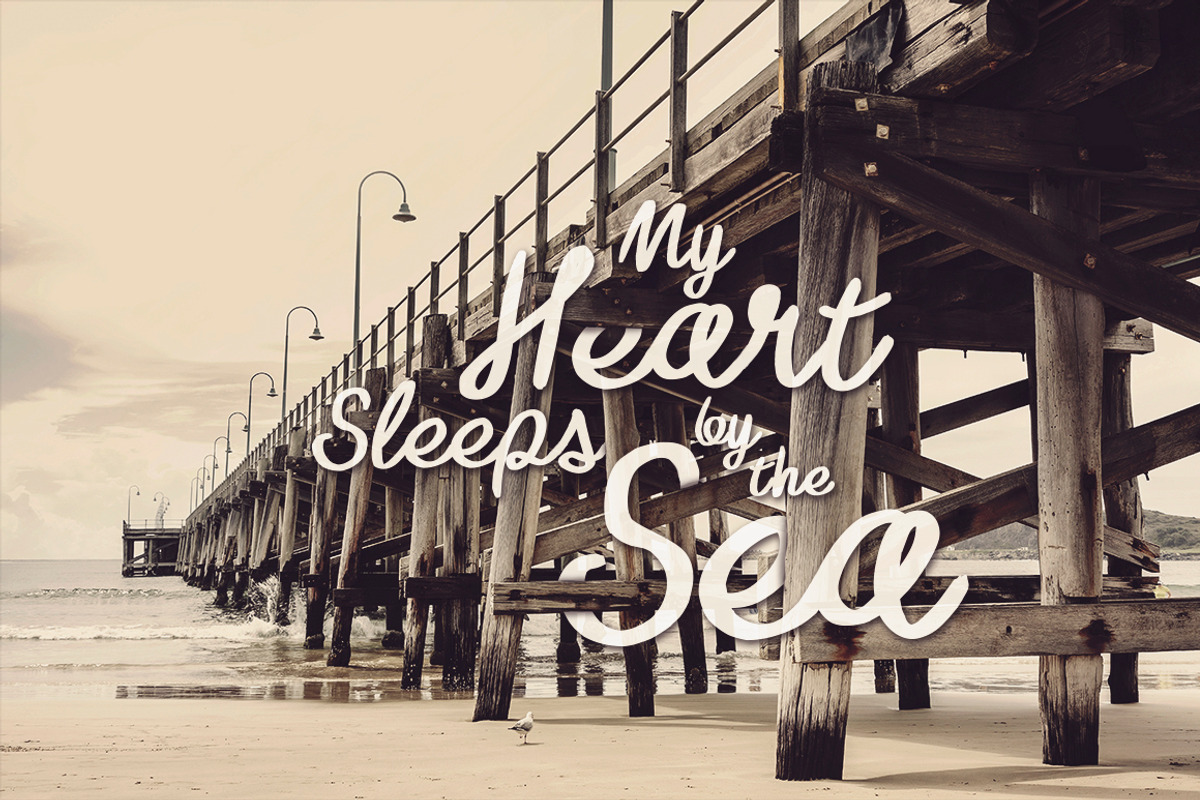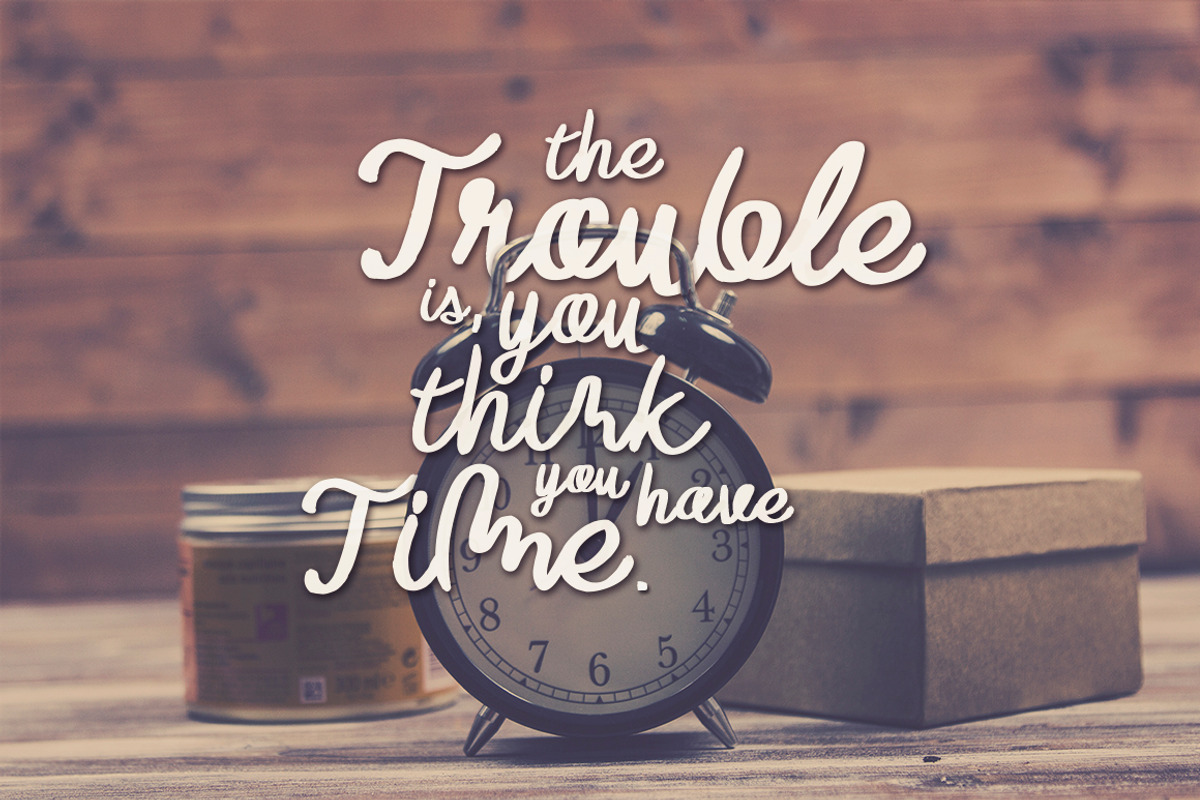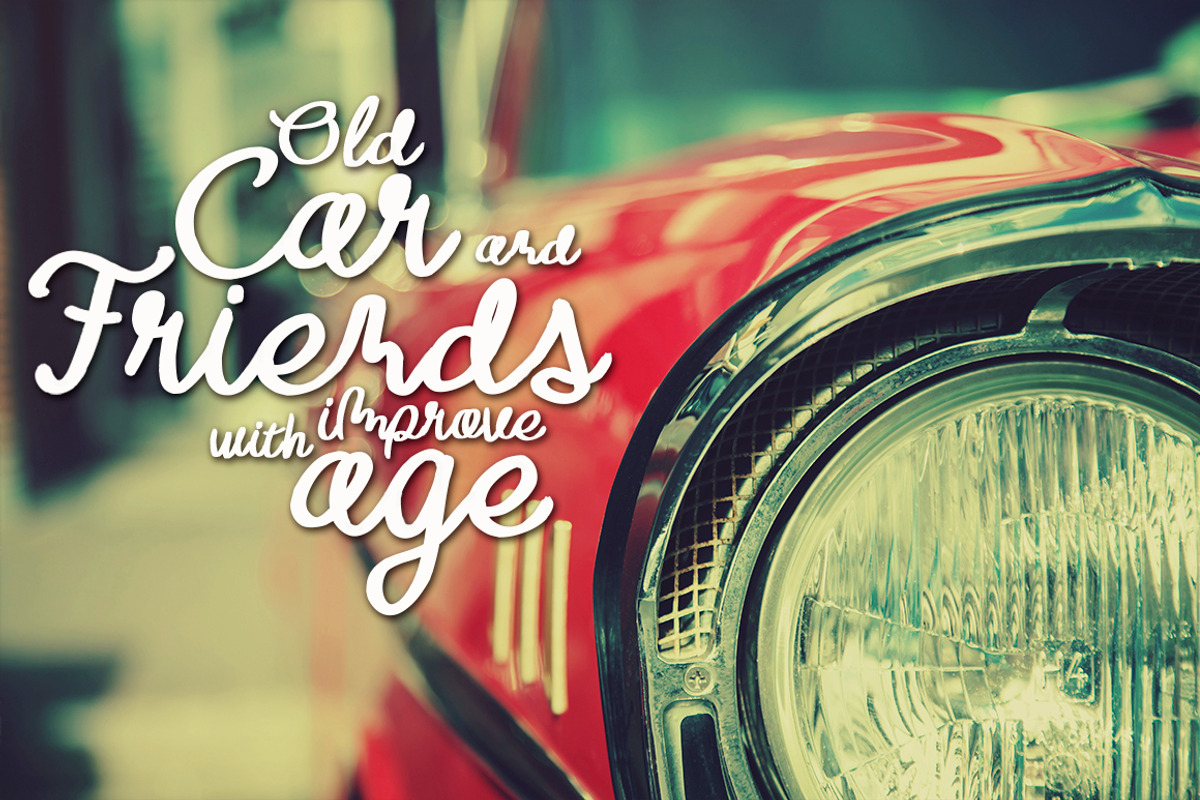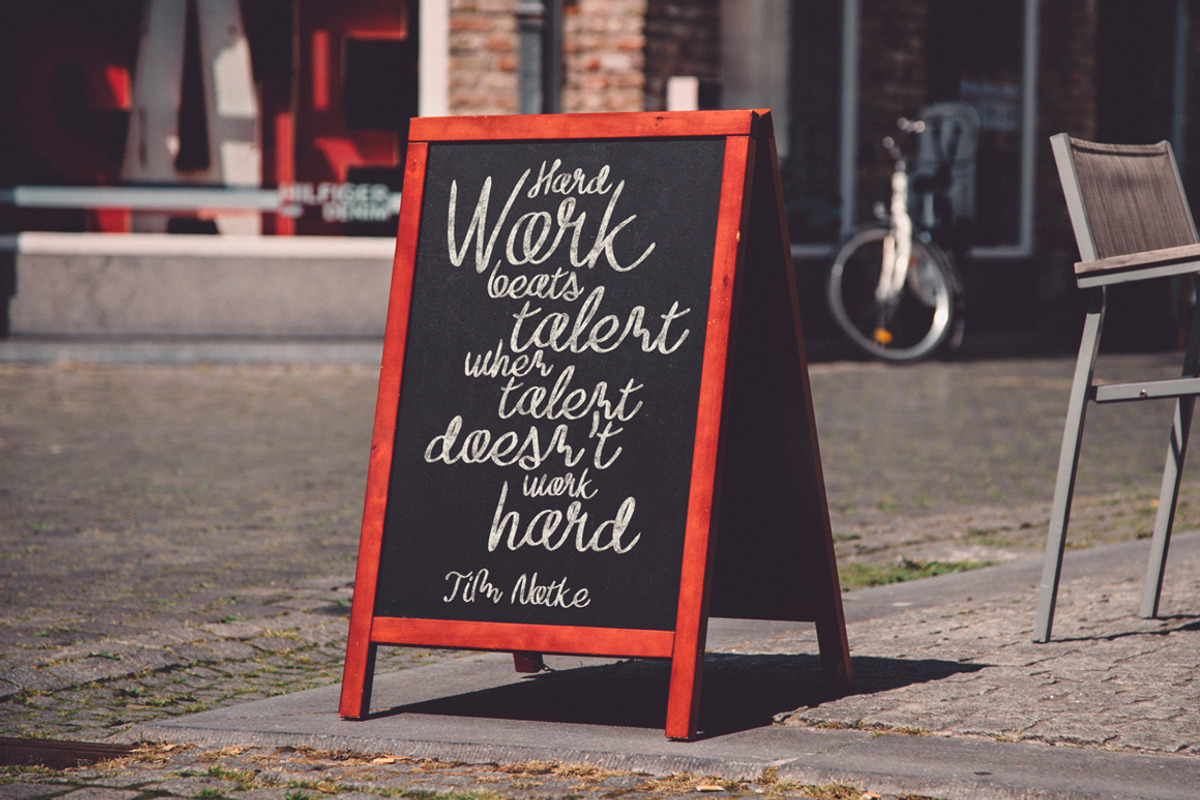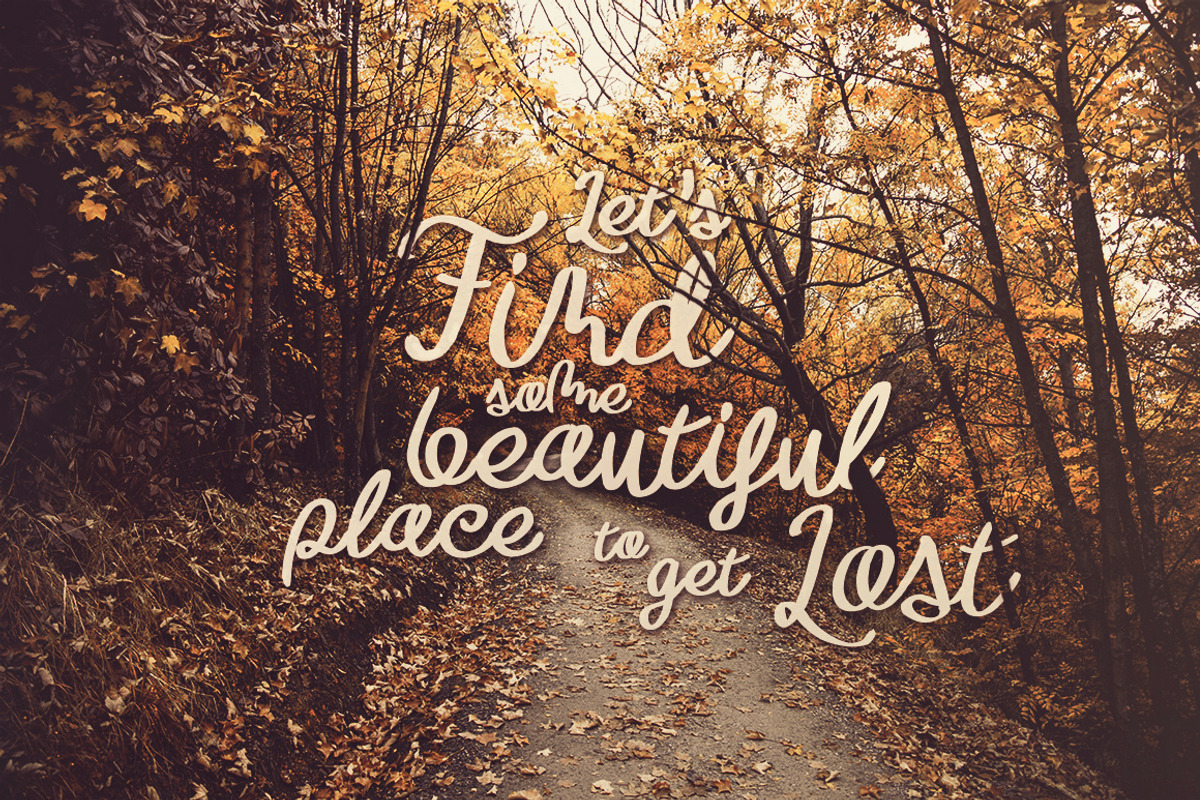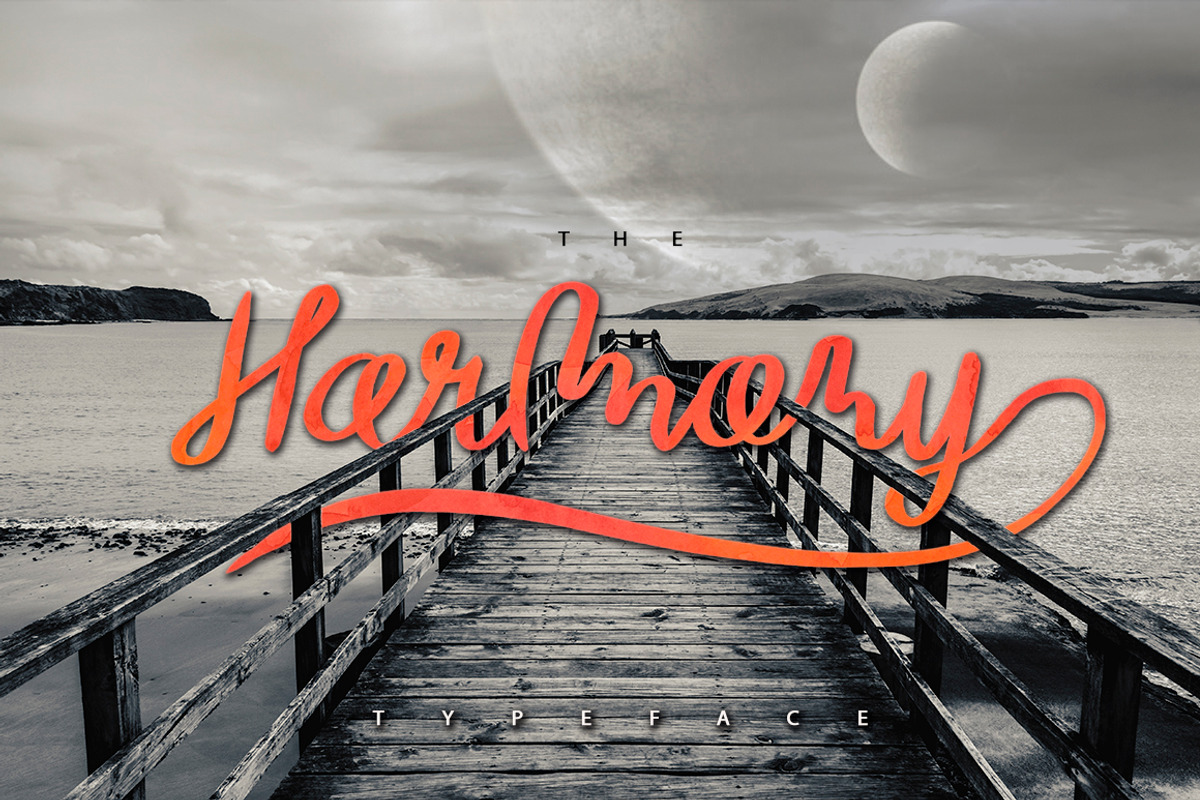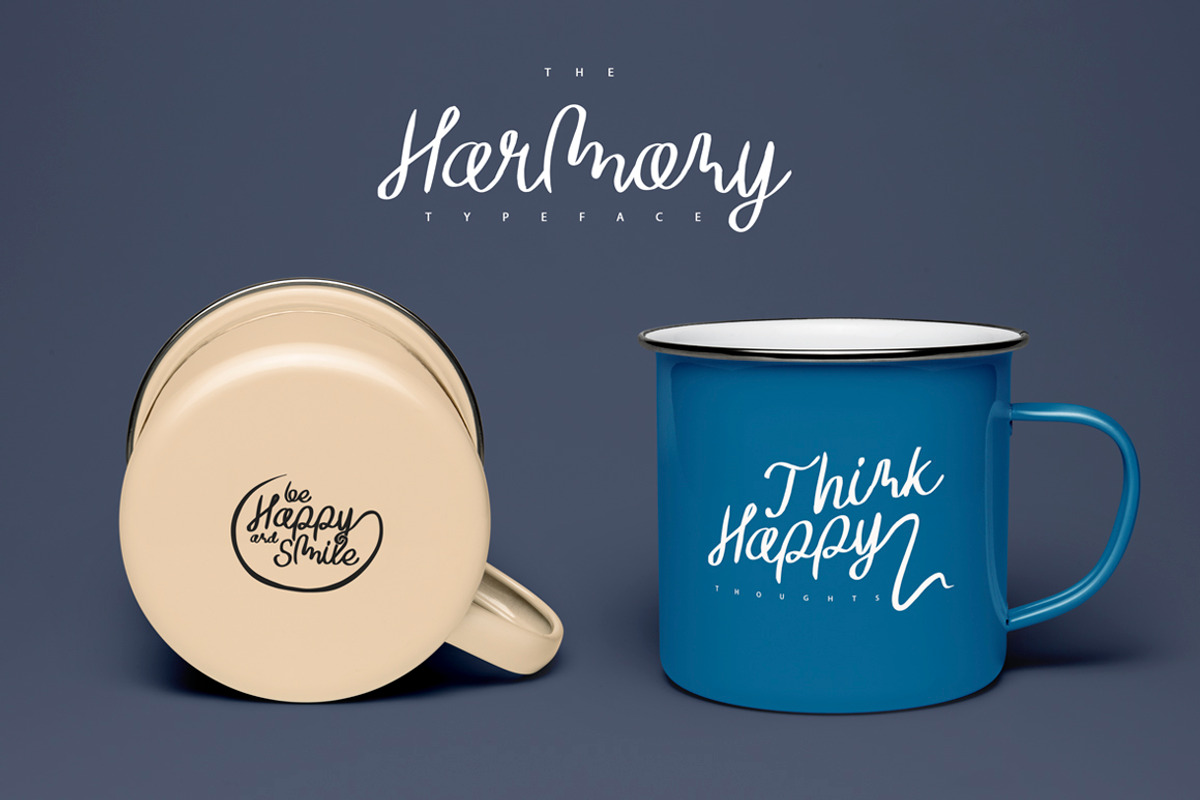
The Harmony Typeface
The Harmony Typeface by SmartDesigns is a font selected for branding, posters, packaging, typography.
Why The Harmony Typeface is worth a look
The Harmony Typeface by SmartDesigns fits naturally into Branding, posters, packaging, typography.